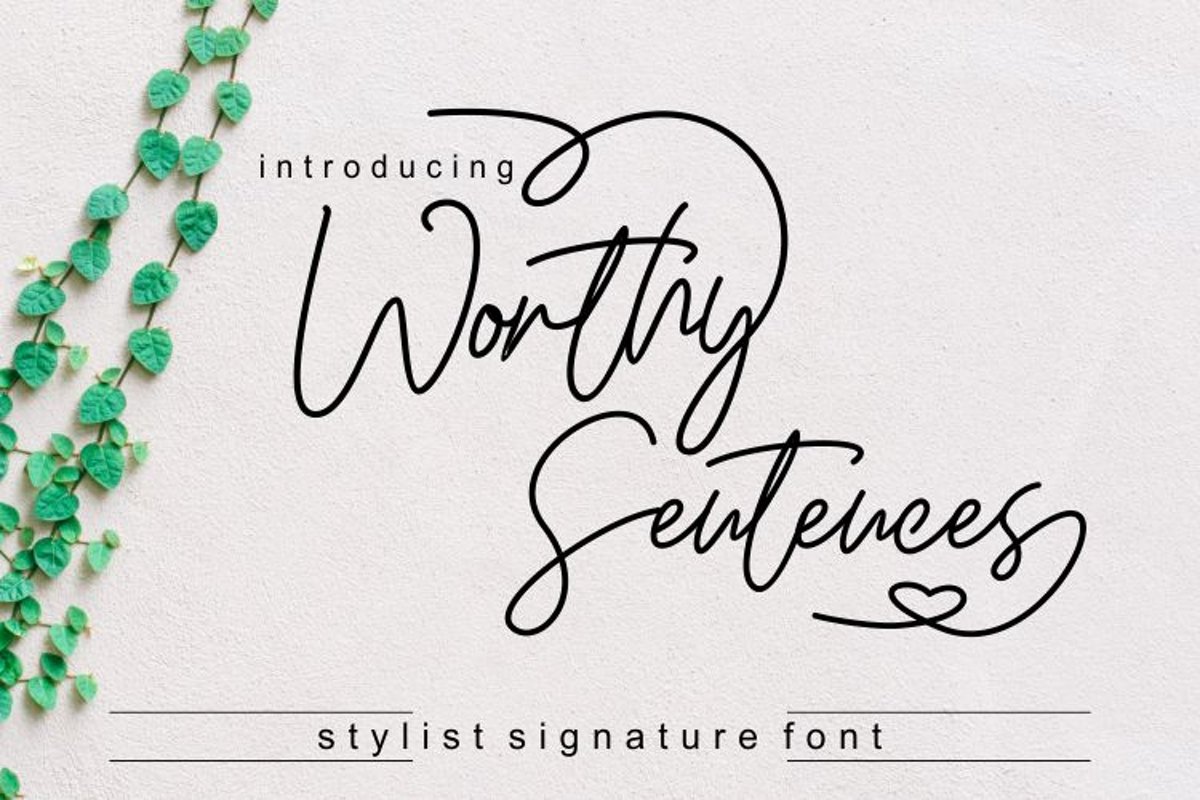
Worthy
Worthy sentences are fonts that directly use the mouse, making this font look perfect with a signature style, this font is perfect for projects that look elegant like logos, wedding designs, branding, social media posts, advertisements, product packaging, product designs, labels, photography, invitations, stationery, and any project that requires handwritten tastes.
Worthy